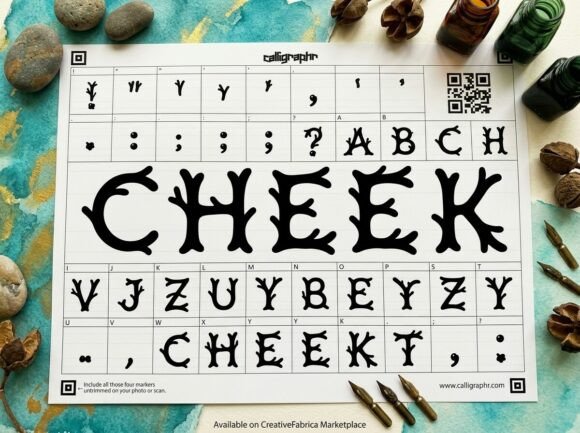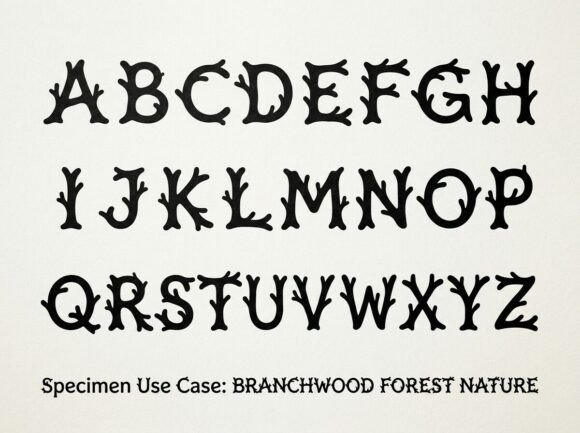
Introducing Cheek Font: A Whimsical Typeface Rooted in Nature
Are you tired of using the same old fonts for your designs? Do you want to add a touch of whimsy and connection to the natural world? Look no further than Cheek Font, an enchanting woodland typeface that captures the essence of the great outdoors. With its unique blend of forest folklore and modern eco-friendly branding, Cheek is the perfect choice for designers and crafters looking to create something truly special.
The Inspiration Behind Cheek Font
Cheek Font is inspired by the natural world, with a focus on the magic and wonder of the forest. The font features tall, illustrative letterforms that are uniquely characterized by rhythmic, budding branch extensions and a twig-like structural weight. This design gives Cheek a distinctly earthy personality, evoking the feeling of organic growth and connection to the land.
Key Features of Cheek Font
So, what sets Cheek Font apart from other typefaces? Here are a few key features that make it so special:
- Tall, illustrative letterforms: Each letter in Cheek Font is carefully crafted to resemble a living, breathing part of the forest. The tall, slender forms are perfect for creating eye-catching headlines and titles.
- Rhythmic, budding branch extensions: The branch-like extensions that adorn each letter give Cheek Font its unique, whimsical feel. These extensions add a touch of movement and energy to your designs.
- Twig-like structural weight: The structural weight of Cheek Font is reminiscent of twigs and branches, giving it a distinctly natural, earthy feel.
- Earthy personality: Cheek Font has a personality that’s deeply rooted in the natural world. It’s perfect for designs that require a sense of organic growth and connection to the land.
Perfect for Eco-Friendly Branding and More
Cheek Font is the perfect choice for a wide range of design projects, including:
- Independent garden center identities: Create a unique and eye-catching brand identity for your garden center with Cheek Font.
- Boutique organic skincare logos: Add a touch of natural elegance to your skincare brand with Cheek Font.
- Fantasy adventure games: Bring the magic of the forest to your game with Cheek Font’s whimsical, enchanting design.
- High-impact social media headers: Make a statement on social media with Cheek Font’s bold, eye-catching design.
Why Choose Cheek Font?
So, why should you choose Cheek Font for your next design project? Here are just a few reasons:
- Unique and eye-catching design: Cheek Font is unlike any other typeface on the market. Its unique blend of natural and whimsical elements is sure to grab attention.
- Versatile: Cheek Font can be used for a wide range of design projects, from branding and advertising to packaging and web design.
- Eco-friendly: Cheek Font’s natural, earthy design makes it perfect for eco-friendly branding and marketing materials.
Get Creative with Cheek Font
Ready to unleash your creativity with Cheek Font? Here are a few ideas to get you started:
- Create a nature-inspired brand identity: Use Cheek Font to create a unique and eye-catching brand identity for your business.
- Design a whimsical logo: Add a touch of magic to your logo with Cheek Font’s enchanting design.
- Develop a fantasy world: Use Cheek Font to create a fantasy world that’s full of wonder and magic.